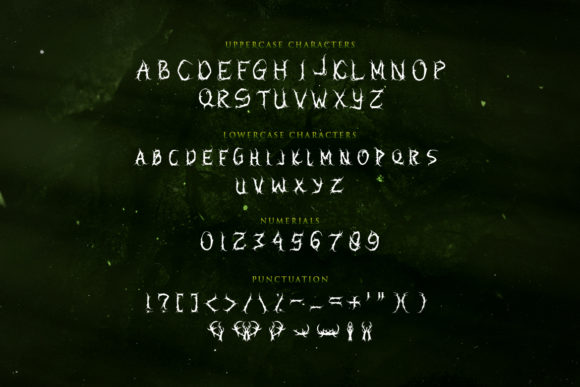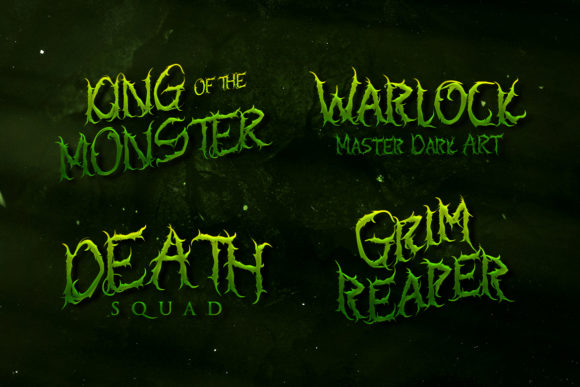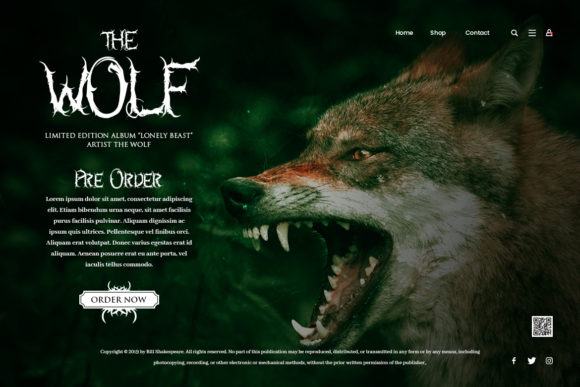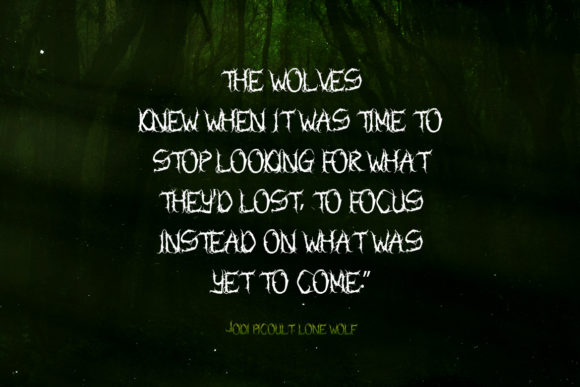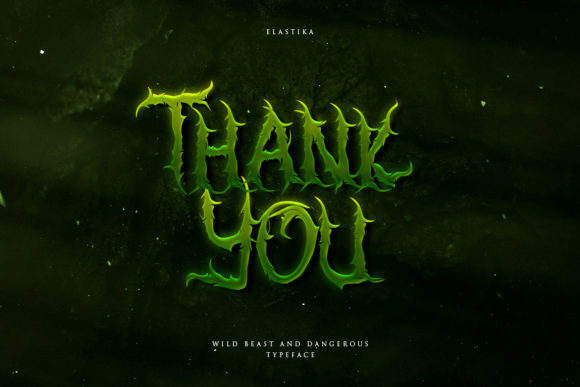
Unleash the Spookiness: Discover the Elastika Font
Are you a designer or crafter looking for a unique and spooky font to elevate your Halloween-themed creations? Look no further than the Elastika Font. This incredibly distinctive display font is sure to make your projects stand out and leave a lasting impression. In this article, we’ll dive into the world of Elastika Font, exploring its features, uses, and benefits for designers and crafters.
What is Elastika Font?
Elastika Font is a one-of-a-kind, spooky display font designed to add a touch of eeriness to your creative projects. Its unique and unconventional design makes it perfect for Halloween-themed designs, but it’s also versatile enough to be used in a variety of other contexts, such as horror movies, haunted houses, or even creepy-cute illustrations.
Features of Elastika Font
So, what makes Elastika Font so special? Here are some of its key features:
- Unique Design: Elastika Font boasts an incredibly unique design that’s unlike any other font out there. Its stretched and distorted letters will add a touch of spookiness to any project.
- Display Font: Elastika Font is a display font, making it perfect for headlines, titles, and other attention-grabbing elements.
- Highly Versatile: Despite its spooky vibe, Elastika Font can be used in a variety of contexts, from horror movies to children’s illustrations.
Uses of Elastika Font
Elastika Font is perfect for designers and crafters who want to create eye-catching and memorable projects. Here are some ideas to get you started:
- Halloween-themed Designs: Use Elastika Font to create spooky invitations, posters, and decorations for Halloween parties or events.
- Horror Movies and TV Shows: Add a touch of eeriness to your horror movie or TV show promotions with Elastika Font.
- Haunted Houses and Attractions: Use Elastika Font to create creepy signs and advertisements for haunted houses and attractions.
- Illustrations and Comics: Elastika Font is perfect for adding a spooky touch to your illustrations and comics.
Benefits of Using Elastika Font
So, why should you choose Elastika Font for your projects? Here are some benefits:
- Stand out from the Crowd: Elastika Font is unlike any other font out there, making it sure to grab attention and leave a lasting impression.
- High-quality Design: Elastika Font is designed with high-quality and clarity in mind, ensuring that your projects look professional and polished.
Tips for Using Elastika Font
Here are some tips for getting the most out of Elastika Font:
- Use it Sparingly: Elastika Font is a bold and attention-grabbing font, so use it sparingly to avoid overwhelming your design.
- Experiment with Colors: Elastika Font looks great in a variety of colors, so experiment with different hues to find the perfect fit for your project.
- Pair it with Other Fonts: Elastika Font pairs well with other fonts, so don’t be afraid to experiment with different combinations.
In conclusion, Elastika Font is a unique and spooky display font that’s perfect for designers and crafters looking to add a touch of eeriness to their Halloween-themed creations. With its highly versatile design, ease of use, and high-quality design, Elastika Font is sure to make your projects stand out. So why wait? Download Elastika Font today and unleash the spookiness in your designs!